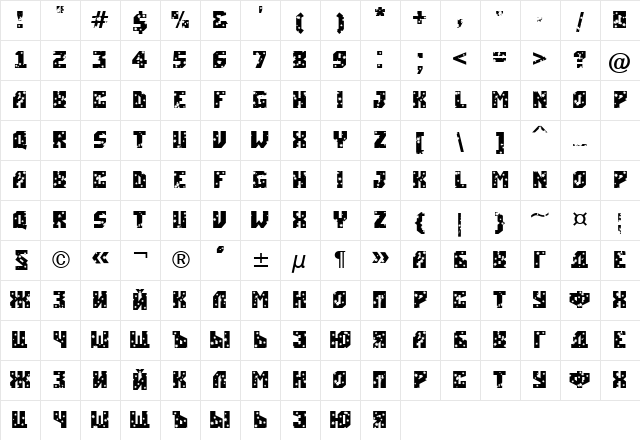
a_SimplerStrs Regular Free Font
a_SimplerStrs Regular
Design Context for a_SimplerStrs
a_SimplerStrs is a composed and adaptable typeface that performs quietly and consistently across a wide range of design contexts.